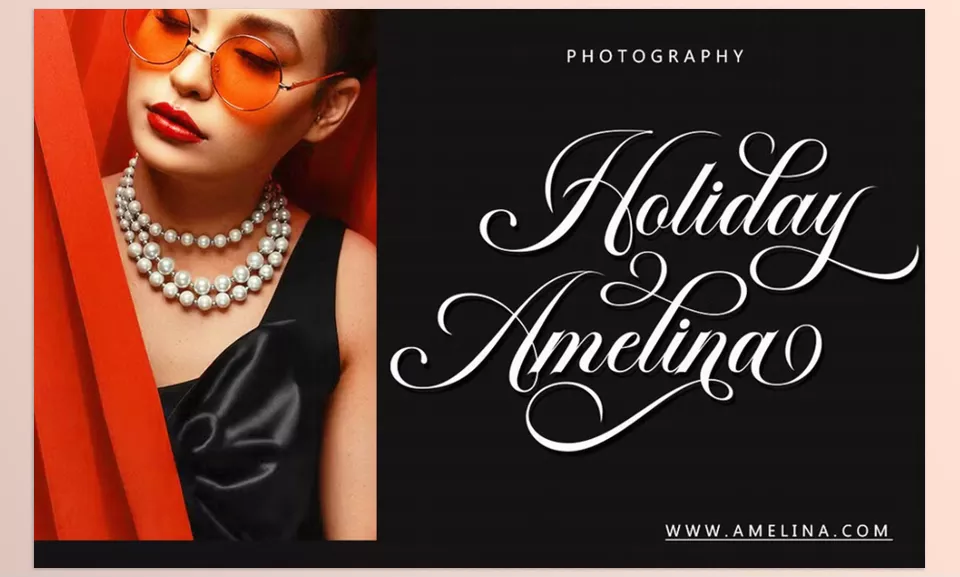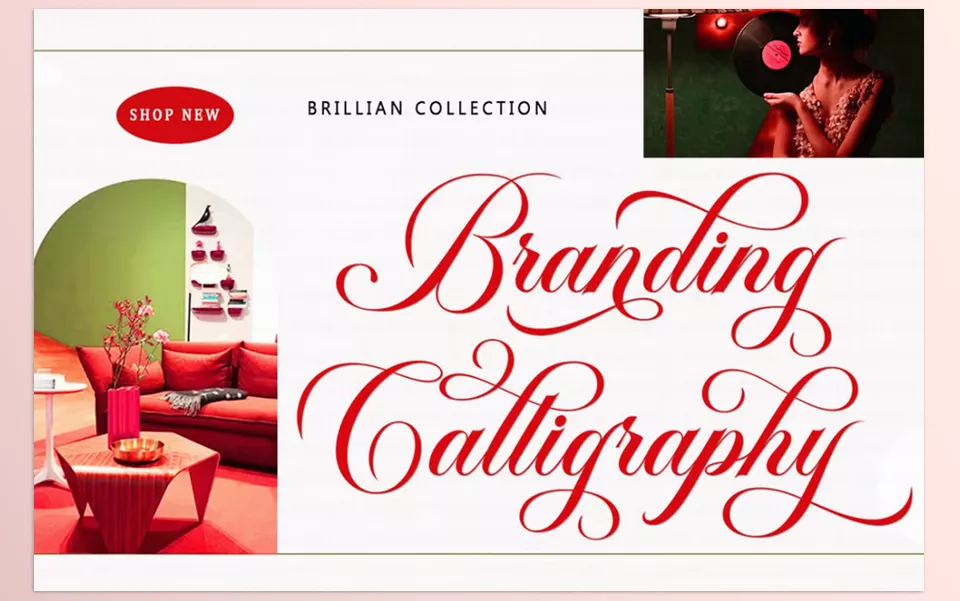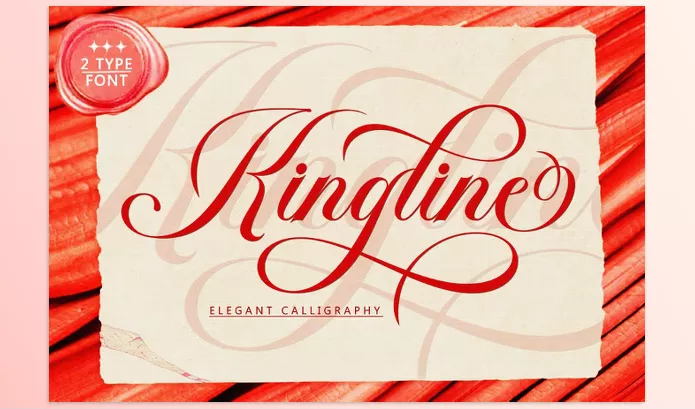
Kingline Font is a stunning fusion of classic and modern styles suitable for formal use. This font is well designed to be visually appealing and khighly sophisticated making it suitable for branding fashion and wedding invitations.
• Refined Design: Merges vintage elegance and modern style together
• Dynamic Versatility: Cut out for use in invitations, menus, logos, and more.
• Full Inclusivity: Consists of uppercase, lowercase, alternates, numbers, and punctuation.
• Language Inclusivity: Supports various languages for wider use.
• Smooth Connections: Contains readable and clear connections for letter joining.
• Dual Font: Provides printed legibility freedom to switch design types.
Image 1: Capture the essence of luxury with this sophisticated script font.
Kingline Font - Capture the essence of luxury with this sophisticated script font.
Image 2: Accentuate beauty in your designs with a burst of modern touch paired with vintage charm.
Kingline Font - Accentuate beauty in your designs with a burst of modern touch paired with vintage charm.